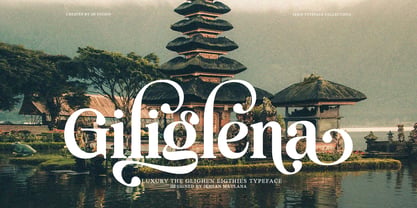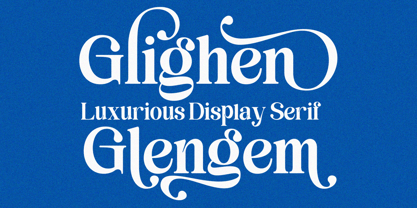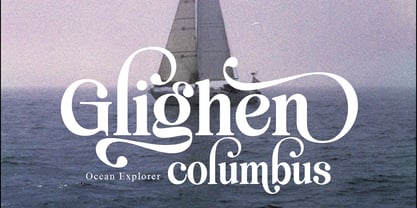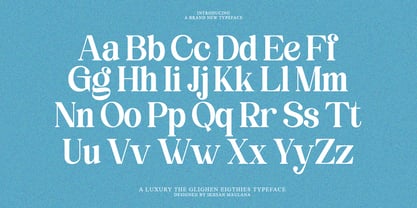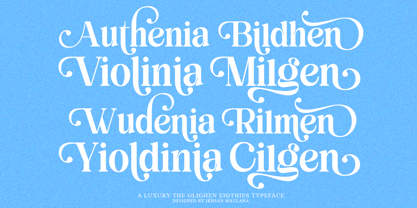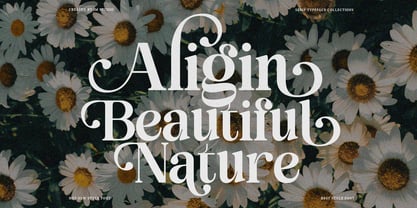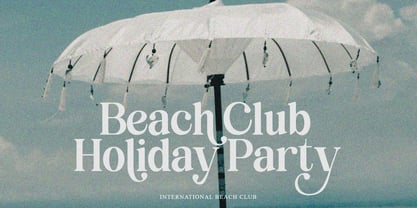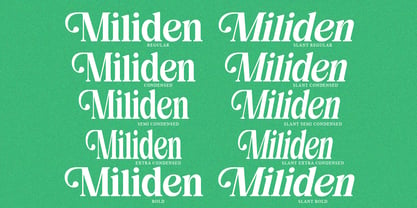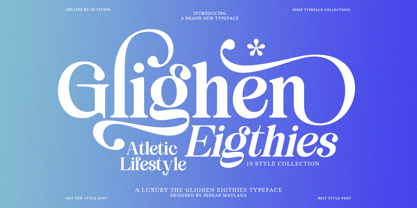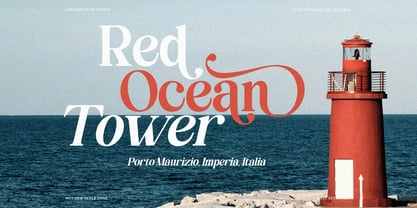
Glighen Eigthies
A família de fontes Glighen Eigthies foi desenhada por Ikhsan Maulana e publicada pela IM Studio. Glighen Eigthies contém 10 estilos e opções de pacote familiar. Saiba mais sobre esta família
ighen Eighties | 10 Font Styles with a Classic Modern Retro Serif
Glighen Eighties is a luxurious vintage serif typeface that captures the elegance of classic design with a modern retro twist. Featuring 10+ stylistic alternates and ligatures, this medium-contrast display font lets you mix and match letterforms to craft beautiful, unique curves and shapes in seconds, no advanced design skills required.
Bold yet refined, Glighen Eighties brings timeless character to branding, logos, wedding invitations, social media graphics, advertisements, packaging, product labels, photography watermarks, stationery, and any project that calls for sophisticated, high-impact typography. Its versatile design maintains excellent legibility across both large display headlines and smaller editorial text.